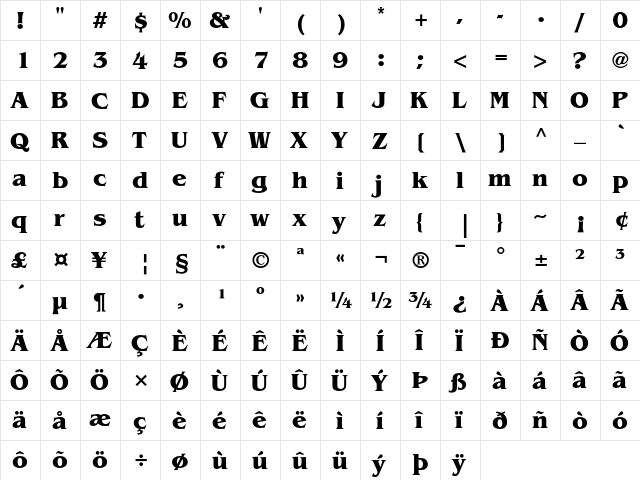
ITC Benguiat Bold
Design Context for ITC Benguiat Typeface
ITC Benguiat takes a measured approach to typography — its balanced proportions and neutral character make it a reliable workhorse for both digital and print work. Its bold stroke weight gives it real presence on the page.